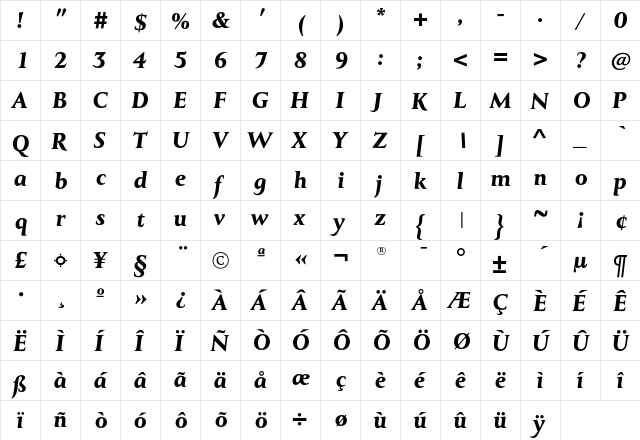
MonktonBoldItalic Regular
Design Context for MonktonBoldItalic Typeface
MonktonBoldItalic offers clean, dependable letterforms without strong stylistic allegiance, making it a practical choice for designers who need flexibility. The slanted form adds forward momentum and visual energy. Its bold stroke weight gives it real presence on the page.